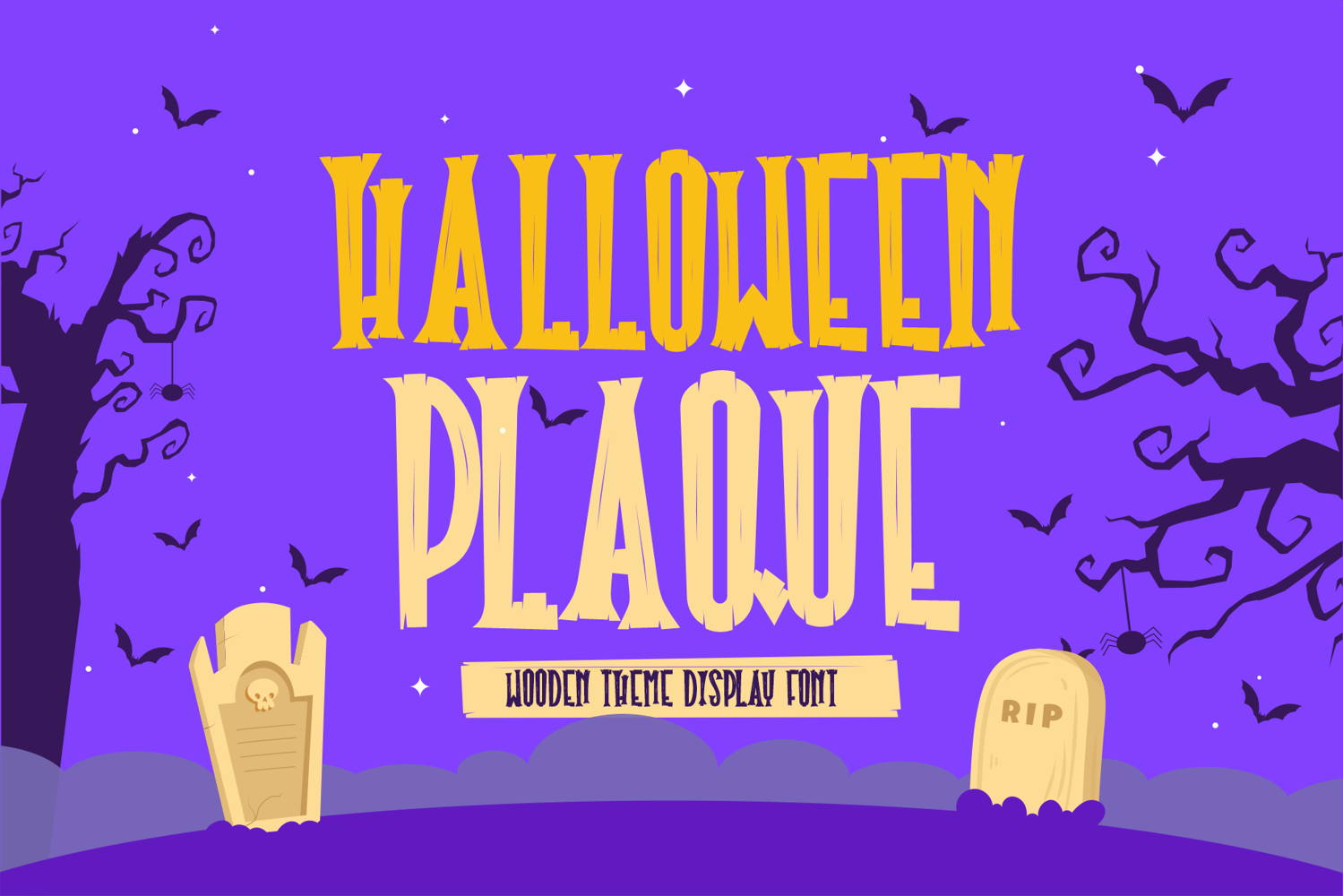
Bring a spooky Halloween atmosphere to your creative projects with Halloween Plaque. This bold display typeface features unique, handcrafted letterforms inspired by haunted wooden plaques, graveyard signs, and classic horror illustrations.